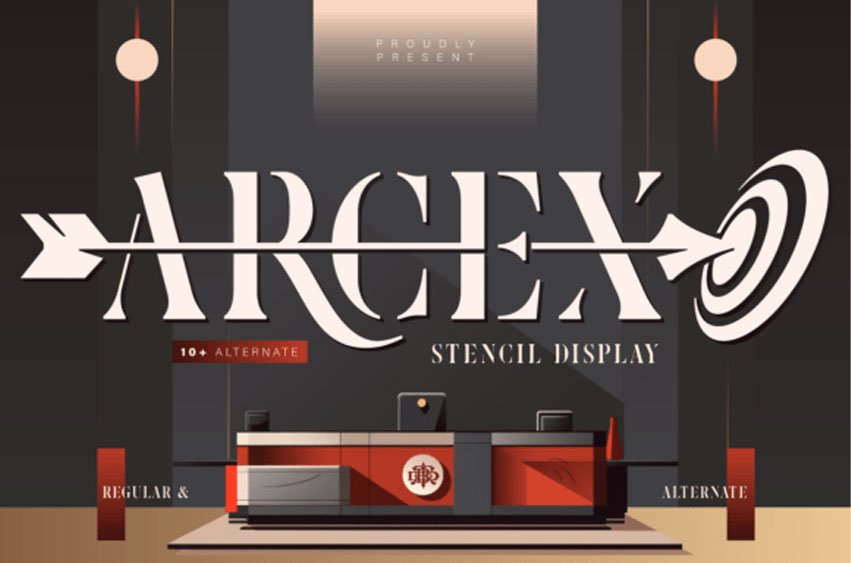
Arcex Font is a bold stencil display font that is perfectly suited for logo design, branding, and impactful headlines. Designed with sharp cuts and strong letterforms, it creates a powerful and memorable visual identity for modern brands.
With its modern stencil style and geometric structure, Arcex brings a professional yet distinctive vibe, perfect for industries like finance, corporate, startups, and more. Suitable for logo design, branding identity, corporate and finance projects, packaging design, editorial and headlines.